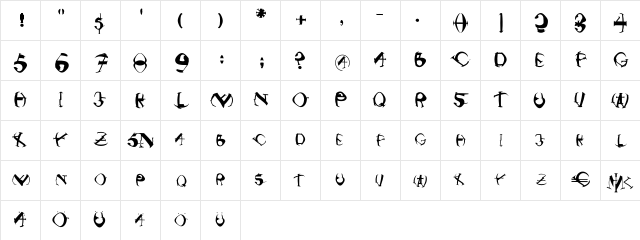
NonCommercial Regular
Design Context for NonCommercial Typeface
NonCommercial is a composed and adaptable typeface that performs quietly and consistently across a wide range of design contexts.